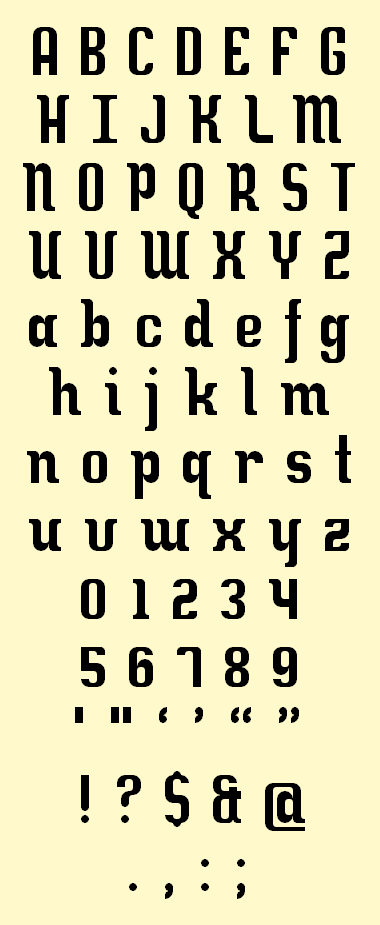
This all started with the m and n. I struggled to fill in the rest of the characters with suitable glyphs. Some turned out good...some not so much.
Then, the fixing the spacing nearly killed me.
The samples show the kerning as-is...I didn't manipulate anything. The character map sample has a space between each character.
The m and n are great. There seems to be a mix of styles, with the a, b, d, g, h, p, q, r following the lovely curve from the m and n; whilst the c, e, o, s, have flat tops. Just a thought in passing :)
@p2pnut You've discovered one of my problems. I couldn't get the c, e, o, and s to have rounder tops and bottoms with making them too narrow. Believe me, I tried, but the narrow versions looked ridiculous.
It's mmm mmm good.
Beautiful letters with style. The sample shows everything. I don't want to repeat what p2pnut said, some letters feel a bit different. I know this kind of dilemma and the process to make a face more consistent. The best remedy is time: you can revisit this work later and modify some bits. Mona Lisa was not painted in a few sittings, but in a long period. Master Leonardo was never quite satisfied with the result, and time to time repainted some parts of it. 10/10
@frodo Thank you for the kind words. Maybe you'll be right, and a solution to some of the problems will come to me eventually.
Very promising, Aphoria!
I would play with the serified endings a little bit more: they are cool! I would use the top part of the P for the B and maybe widen the "belly" a little bit. You may use a serif for the c and s on the top rigth, but it is up to you.
I dig the @. Nice!
that's look really good in your sample ! Nice work !
I might play around with the serifs on some letters.
I've sorted the kerning for you. I think it reads a lot better now, although at such a small grid size, it was a bit of a headache to start with. Time for a much needed update.
@djnippa Wow! Thanks for going to the trouble. Your sample really illustrates some of the problems with this font...some my fault and some because it grid-based.
still a very sexy font. fun and sensual with a definite X factor :) amazing job with the kerning dj - you are definitely the master of manual kerning here at FS.
this font is really good looking and i love it. sample is good. nice work.